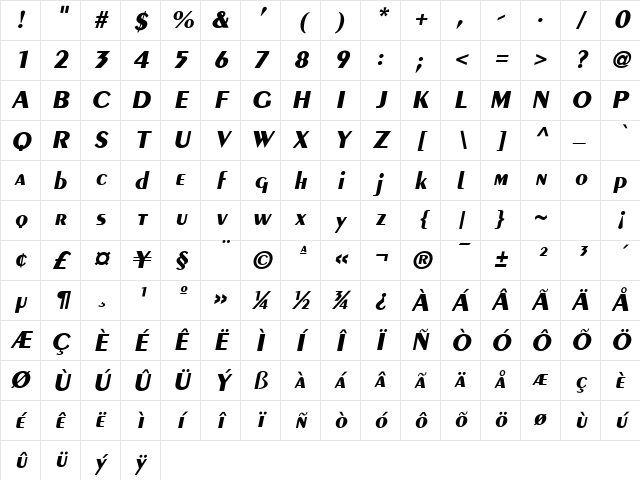
Complete Penoir Bold-Oblique glyph index. Displaying only characters natively supported by Penoir Bold-Oblique font.
Penoir is a composed and adaptable typeface that performs quietly and consistently across a wide range of design contexts. The slanted form adds forward momentum and visual energy. Its bold stroke weight gives it real presence on the page.
Pro Tip: Use Penoir for emphasis, pull quotes, and subheadings where its slanted energy can add rhythm to the layout.